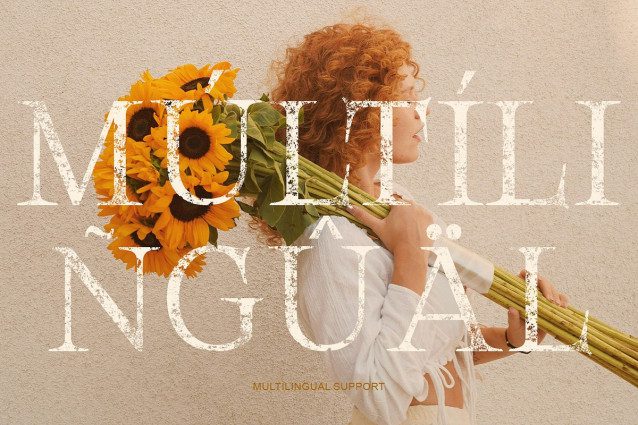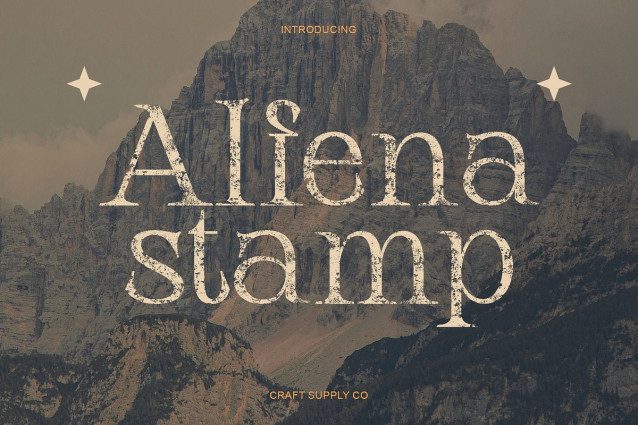
Alfena stamp Font
Alfena Stamp Font – Modern Classic Serif Font with Stamp Effect: Timeless Elegance with Vintage Texture Classic Form Meets Modern Sophistication This is a modern classic serif font that blends refined structure with contemporary grace. Featuring long, slender serifs and balanced proportions, it radiates sophistication and clarity, making every composition feel elevated and stylish.
Stamp Texture for Authentic Vintage Charm The stamp effect adds a touch of nostalgia and handcrafted depth to this fonts polished design. Each character carries a unique vintage texture, giving the font a lively, expressive quality that evokes traditional printing while maintaining a modern sensibility.
Elegant Versatility for Creative Projects Whether used for luxury branding, editorial layouts, or artistic posters, this font delivers a sense of craftsmanship and character. Its seamless mix of classic form and textured imperfection makes it suitable for both modern minimalist and vintage-inspired designs.
Perfect Balance of Refinement and Warmth This font stands out by merging elegance with authenticity it’s refined yet approachable, classic yet creative. Perfect for projects that aim to convey heritage, sophistication, and timeless beauty through distinctive typography.